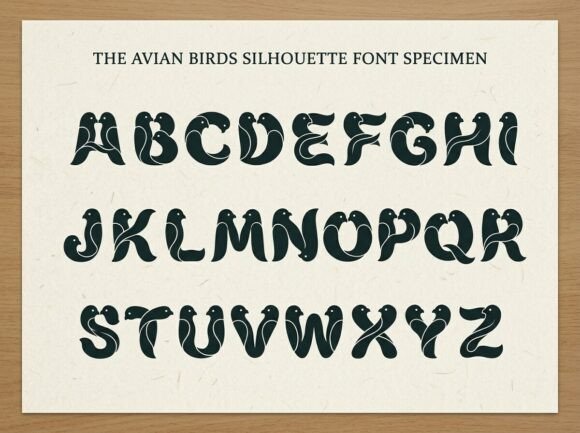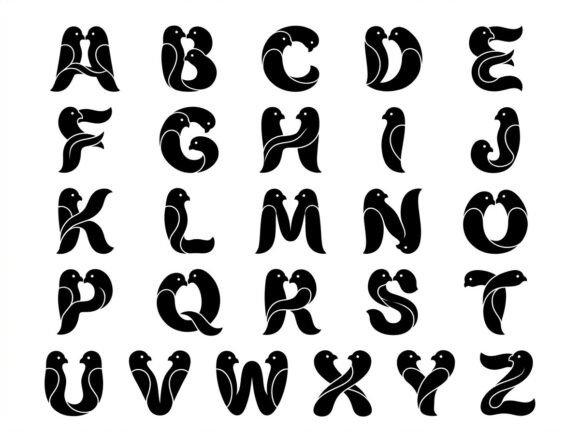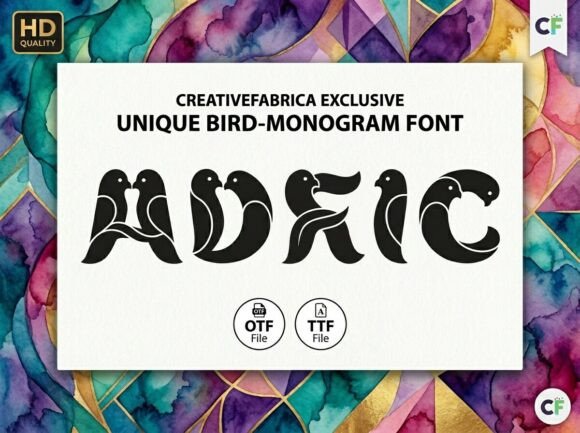
Introducing Adric Font: Where Nature Meets Typography
Imagine a world where the elegance of birds and the art of typography come together in perfect harmony. Welcome to the world of Adric, a bird-monogram font that redefines the boundaries of illustrative design. This extraordinary display typeface is a masterpiece of creativity, where each character is meticulously crafted from the silhouettes of elegant birds. In this article, we’ll take you on a journey to explore the unique features of Adric and how it can elevate your design projects to new heights.
The Art of Adric: A Symphony of Birds and Letters
Adric is more than just a font – it’s a work of art that showcases the beauty of nature and typography. Each character in Adric is carefully constructed from the silhouettes of birds, using clever negative space and fluid, organic curves to create recognizable letters. The wings, beaks, and bodies of avian forms intertwine to form a stunning visual experience that is both imaginative and elegant.
Perfect for Nature-Inspired Designs
Adric is an exceptional choice for designers and crafters looking to create nature-inspired designs that convey a sense of artisanal grace and imagination. Whether you’re working on a wildlife conservation branding project, an avian-themed boutique logo, or an environmental organization’s header, Adric is the perfect font to bring your vision to life.
Wildlife Conservation Branding
For wildlife conservation organizations, Adric offers a unique opportunity to create a brand identity that is both memorable and meaningful. The font’s bird-inspired design elements evoke a sense of freedom, beauty, and protection, making it an ideal choice for organizations dedicated to preserving our planet’s precious wildlife.
Avian-Themed Boutique Logos
For boutique businesses looking to create a logo that stands out from the crowd, Adric offers a stylish and sophisticated solution. The font’s elegant bird silhouettes add a touch of whimsy and charm to any logo, making it perfect for boutiques, cafes, and restaurants that want to convey a sense of refinement and luxury.
Environmental Organization Headers
Environmental organizations can also benefit from Adric’s unique design elements. The font’s eco-friendly vibe and natural beauty make it an excellent choice for headers, titles, and other typography needs. Whether you’re creating a website, brochure, or social media graphics, Adric is sure to make a lasting impression.
Unique Wedding Stationery
And for crafters and designers looking to create unique wedding stationery, Adric offers a romantic and elegant solution. The font’s bird-inspired design elements add a touch of whimsy and charm to any wedding invitation, making it perfect for couples who want to make their special day truly unforgettable.
Key Features of Adric Font
- Unique Bird-Monogram Design: Each character is artfully constructed from the silhouettes of elegant birds.
- Clever Use of Negative Space: Fluid, organic curves and negative space come together to create recognizable letters.
- Elegant and Whimsical: Adric adds a touch of artisanal grace and imaginative beauty to any design.
- Multipurpose: Suitable for a wide range of design projects, from wildlife conservation branding to wedding stationery.
In conclusion, Adric is a truly unique and exceptional font that offers designers and crafters a chance to experience the perfect harmony of nature and typography. With its elegant bird-monogram design, clever use of negative space, and whimsical charm, Adric is sure to elevate any design project to new heights. Whether you’re working on a wildlife conservation branding project or a boutique lifestyle brand, Adric is the perfect choice for anyone looking to add a touch of artisanal grace and imaginative beauty to their designs.